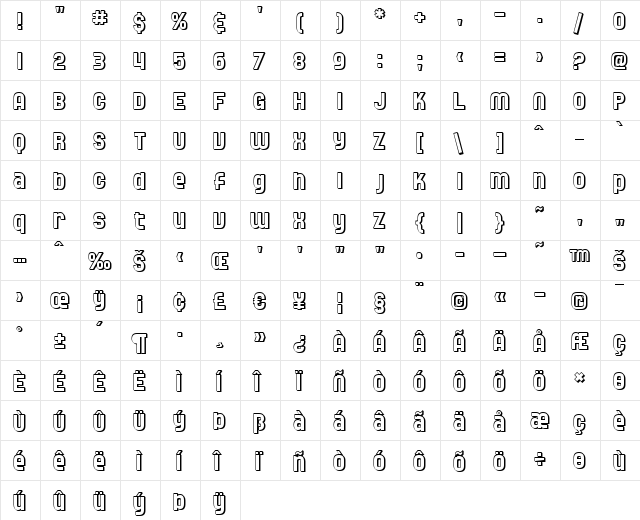
SF Speedwaystar Shaded Regular
Design Context for SF Speedwaystar Shaded Typeface
SF Speedwaystar Shaded is a composed and adaptable typeface that performs quietly and consistently across a wide range of design contexts.